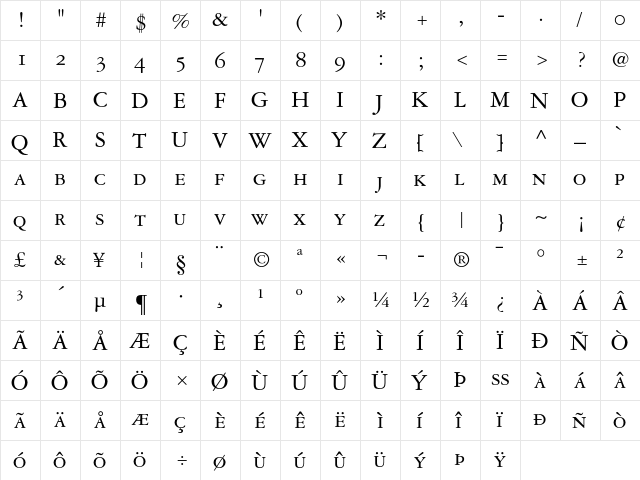
Garamond 3 SC
Design Context for Garamond 3 Typeface
Garamond 3 offers clean, dependable letterforms without strong stylistic allegiance, making it a practical choice for designers who need flexibility.